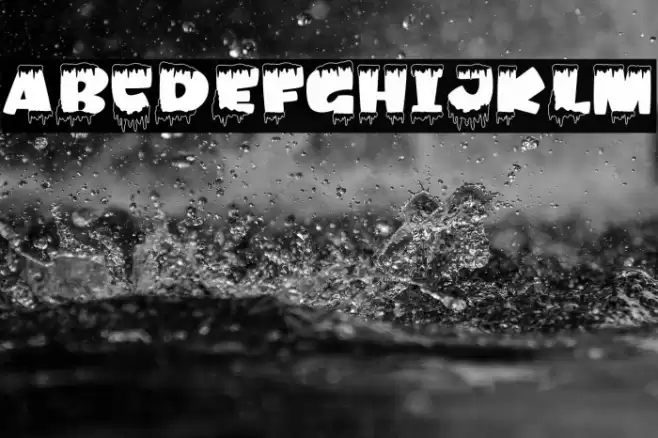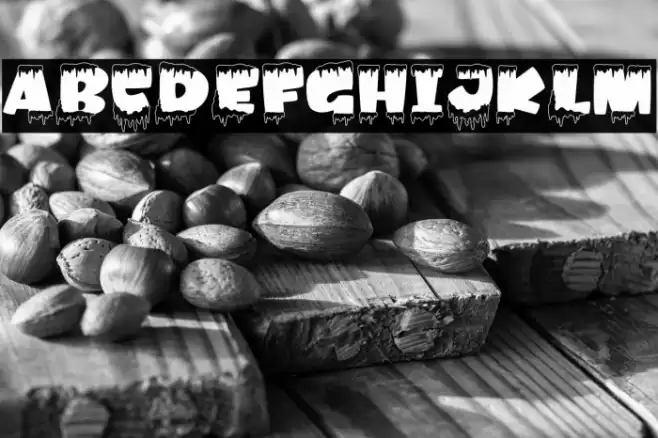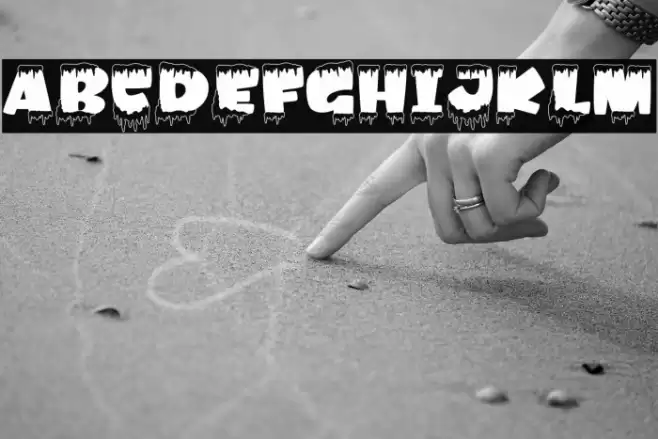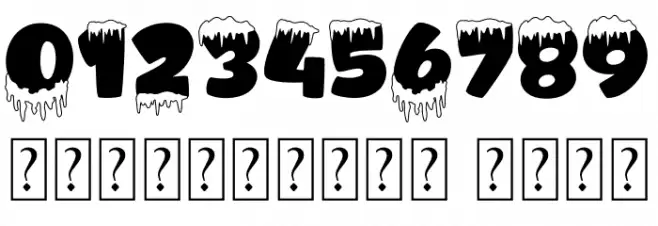
Amonk-Outline Font
Amonk-Outline Description
This font features a bold, decorative style with a unique dripping effect that resembles melting ice or paint. The uppercase and lowercase letters are consistent in their playful, eye-catching design, making it ideal for creative projects. The numbers and special characters maintain the same dripping motif, adding to the cohesive look. The overall appearance is striking and memorable, perfect for themes that require a touch of whimsy or a spooky atmosphere.
A bold, decorative font with a dripping effect, ideal for creative and thematic projects from Uncategorized fonts.
- Font: Amonk-Outline
- Proposed Projects: This font is perfect for Halloween-themed designs, party invitations, posters, and any project that requires a playful or eerie touch.
- Use Case: Headlines, Posters, Thematic Designs